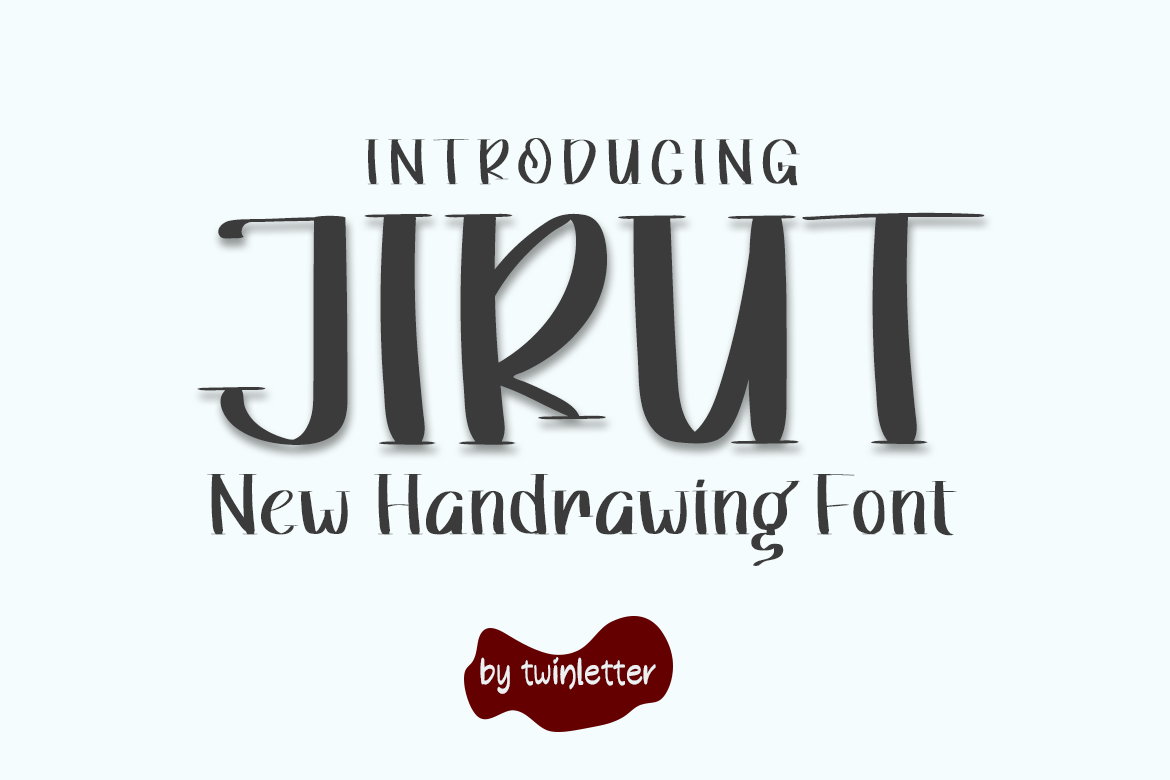
Jirut Font
Jirut feels equally charming and modern. It maintains its classy calligraphic influences while feeling contemporary and fresh. This versatility will appeal to a wide range of crafty ideas, from letterheads and titles, to stationery.
This font is designed with a natural touch of handwriting which is refined to create a portion and composition that suits your needs. So this font is suitable for craft, children’s writing, adventure posters, food banner titles, wedding invitations, product packaging logos, quotes, social media page covers, furniture banner headlines, book covers, and much more.